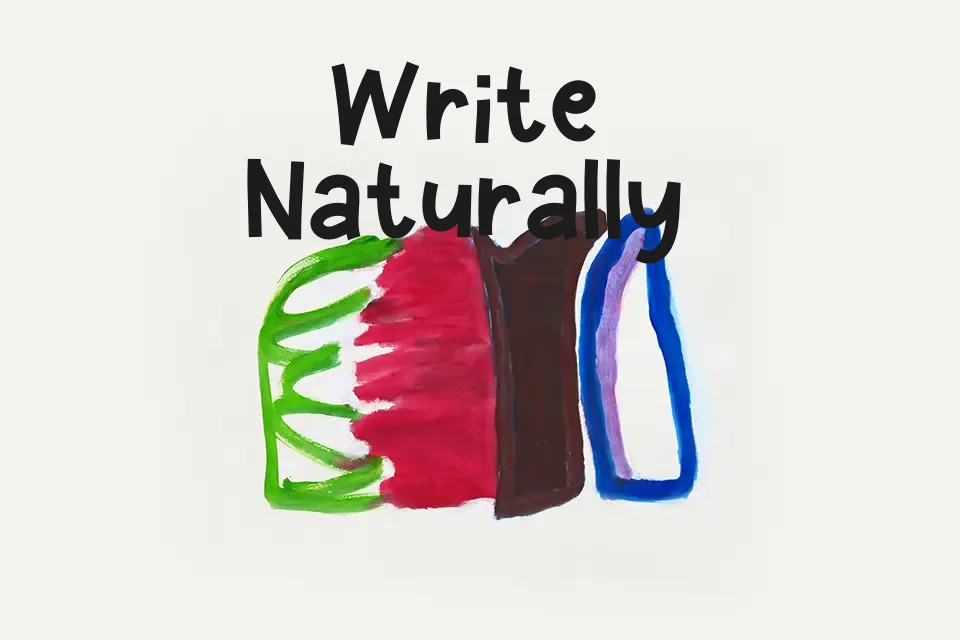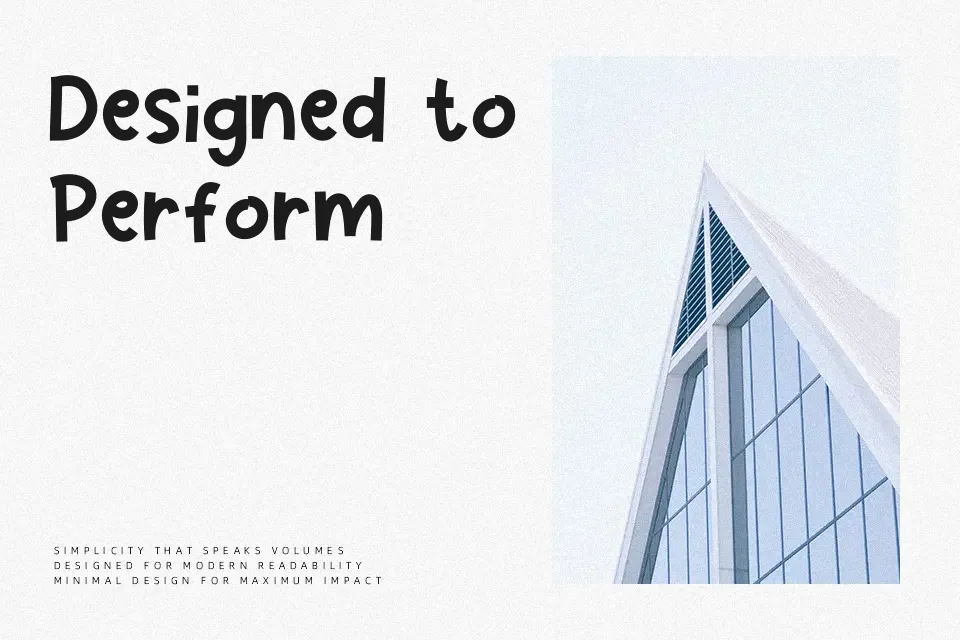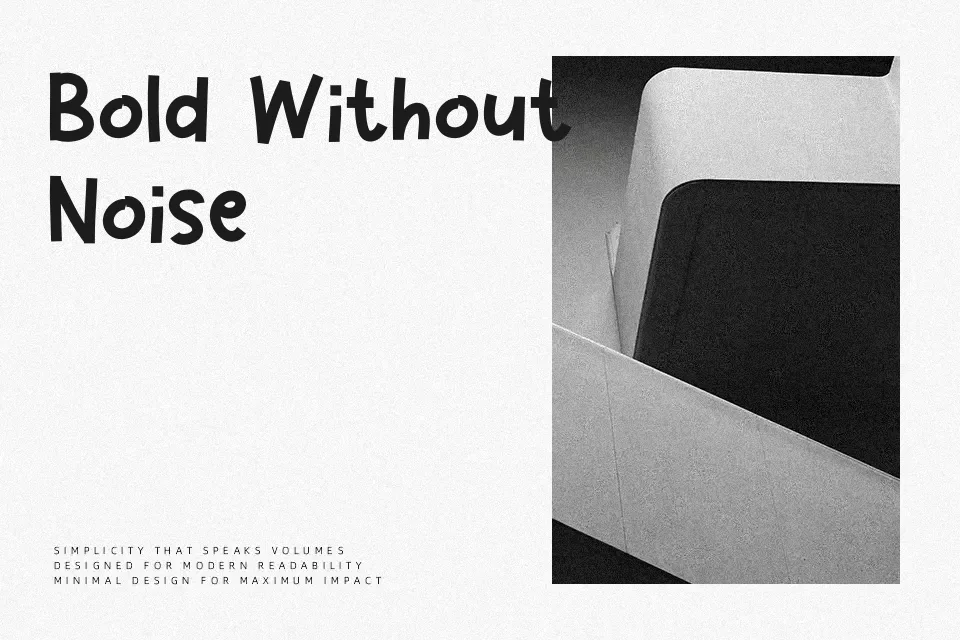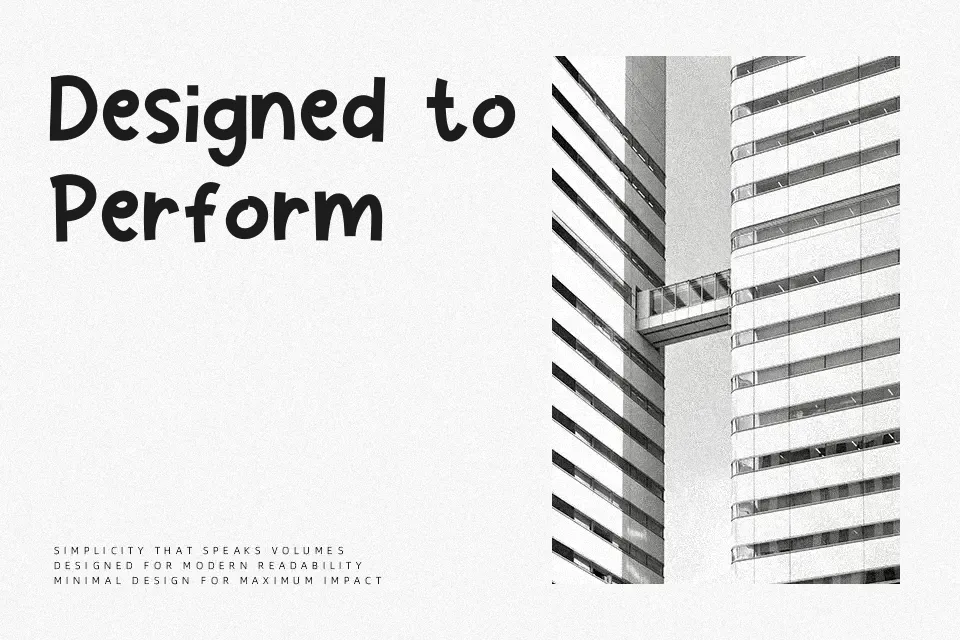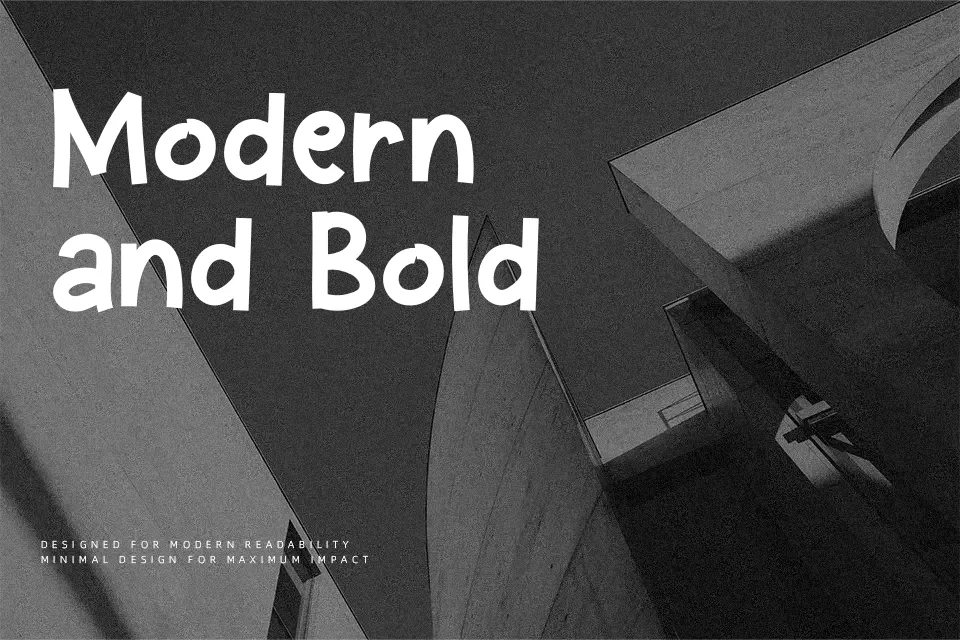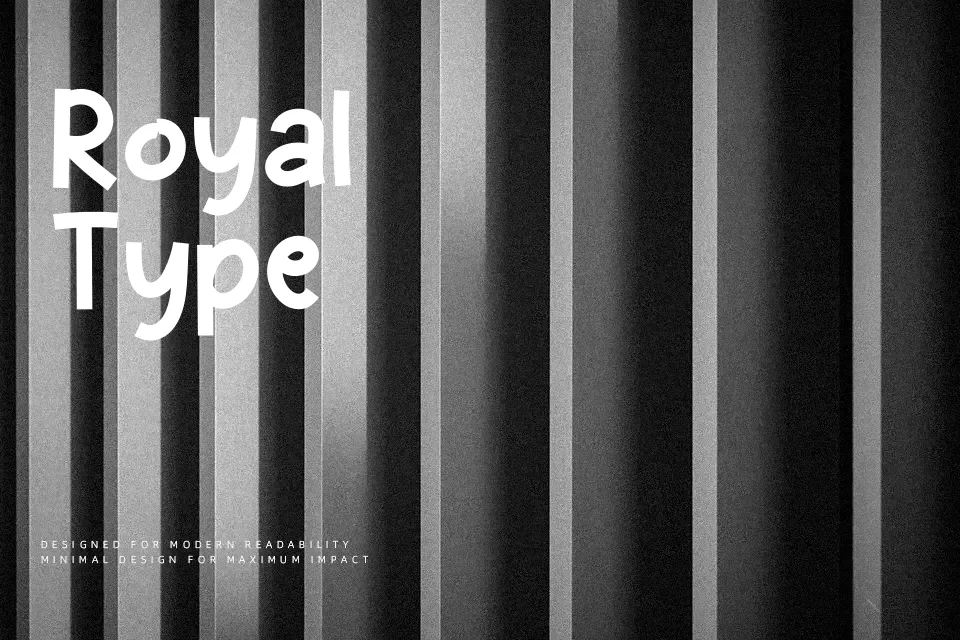
Secret Thief Font
Secret Thief Font features organic, hand-drawn sans letterforms built with soft terminals, irregular stem widths, and a lively bouncing baseline. The solid stroke thickness provides high visual impact, while generous internal counters maintain good legibility across medium and large display formats. Balanced character spacing prevents adjacent glyphs from colliding in energetic headline arrangements. In practice, the typeface performs reliably on toy packaging, cartoon title sequences, and festive classroom posters. However, the heavy stroke weights and idiosyncratic geometry reduce reading comfort in continuous paragraphs, making the design less suitable for dense body text and small UI labels.
Best For: children’s book covers, toy packaging, cartoon video titles, playful promotional posters
Not Ideal For: extended editorial body copy, formal legal contracts, dense spreadsheet tables, small mobile interface text
Perfect for headline, kids, and packaging, with a cute and cartoon style.